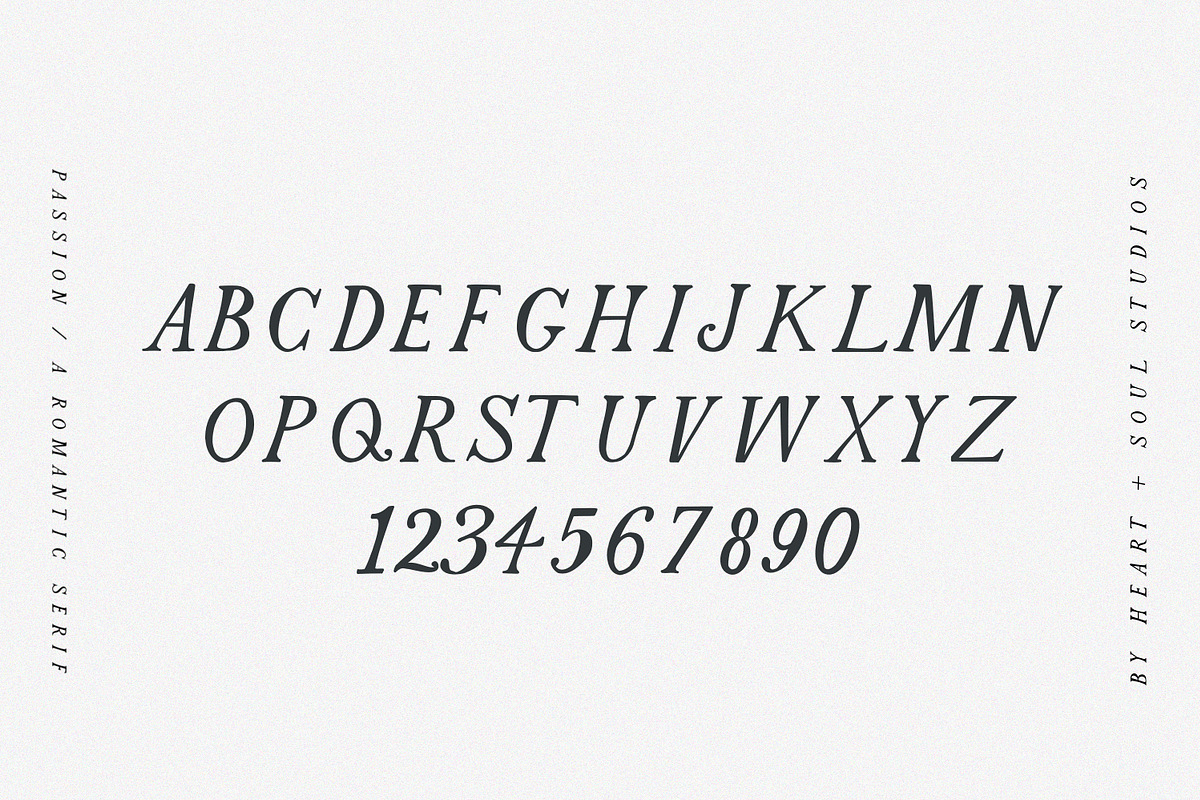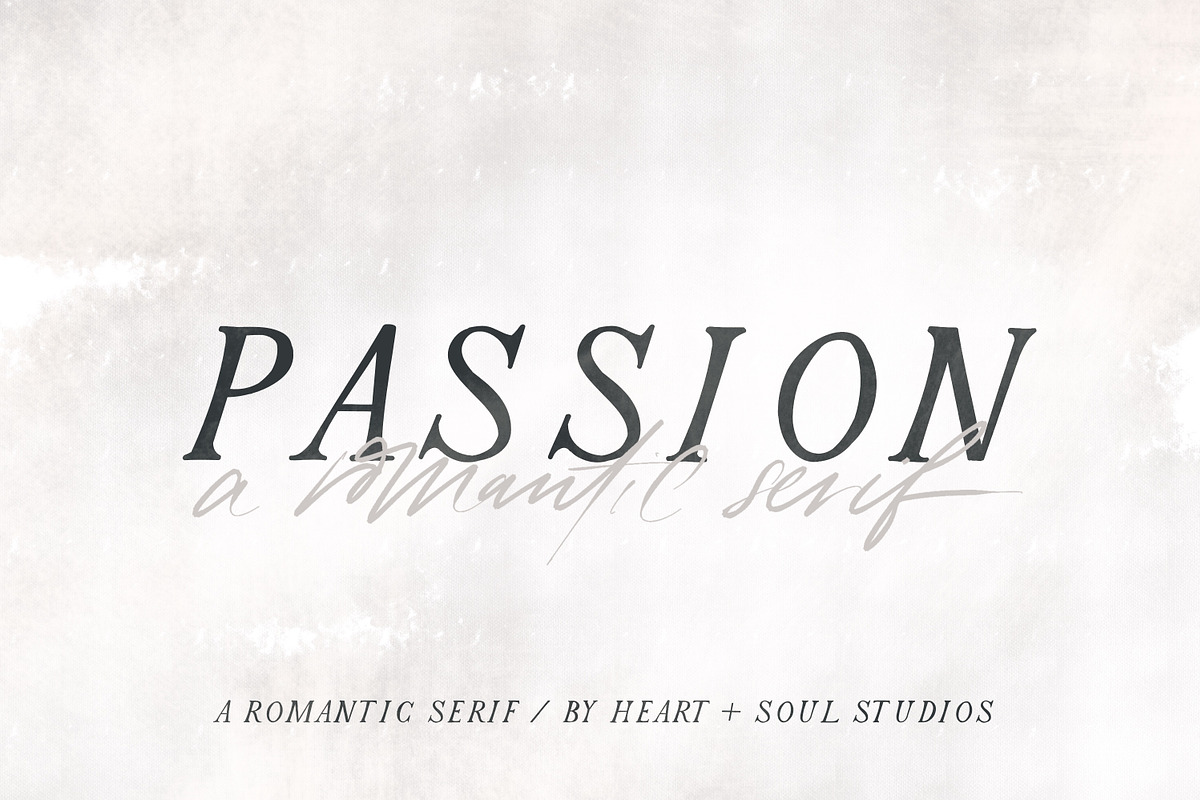
Passion | Romantic Serif
Inspired by the way Love gave Himself for all, Passion is a romantic handwritten serif font, with a clear strength, depth and emotive feel.
For you, whoever you are, that you may know Love.